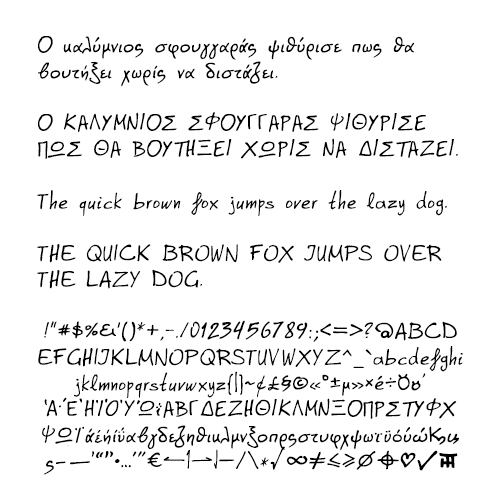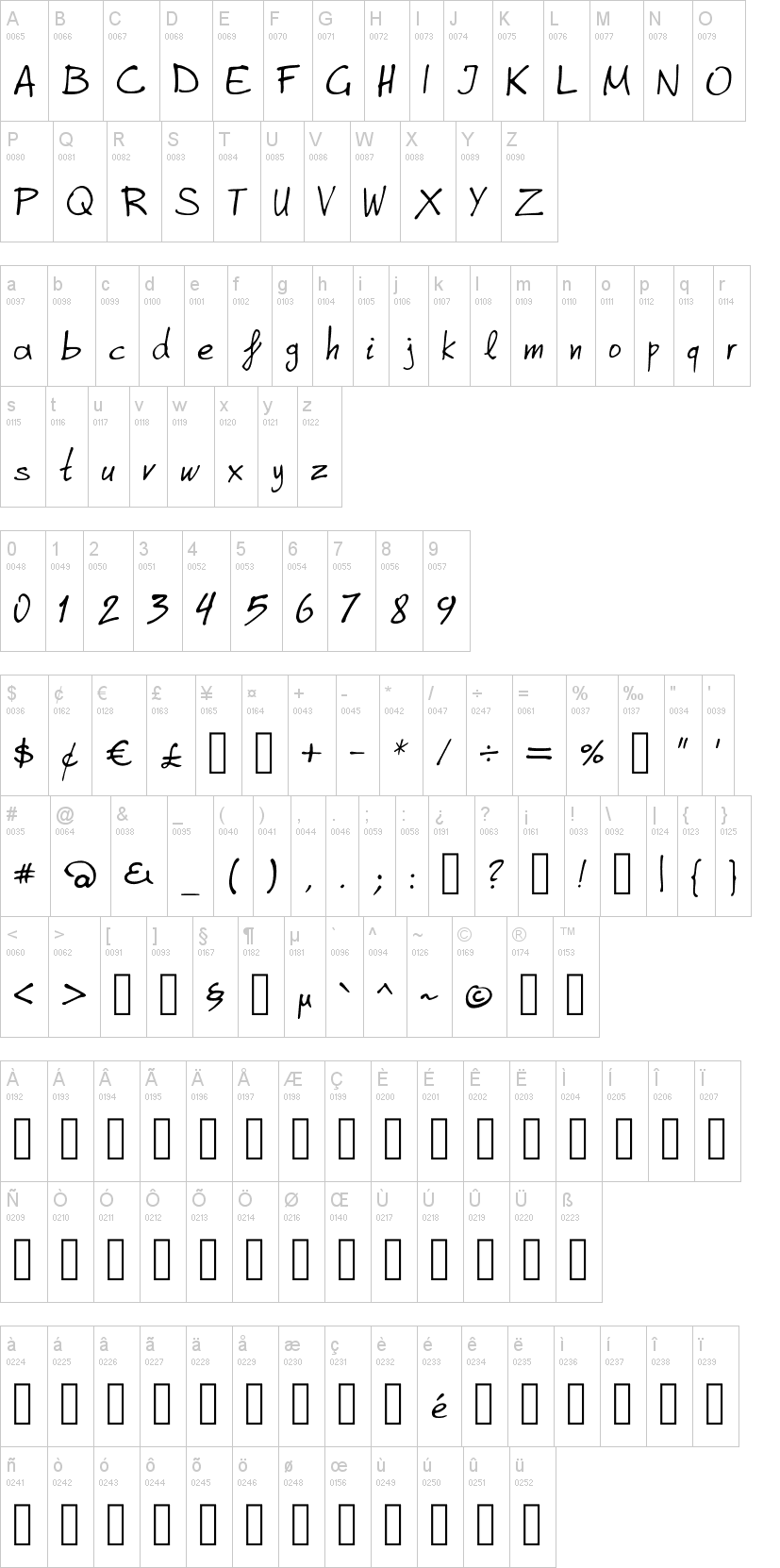
Note of the authorGraphe [< Greek for script, γραφή] is a personal, handwritten font with awful kerning. It contains English, Greek and several obscure glyphs.